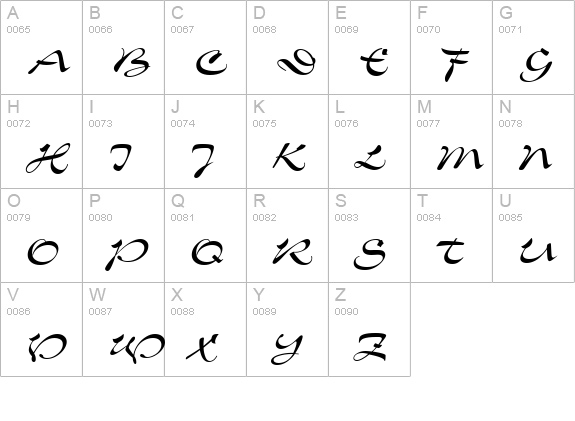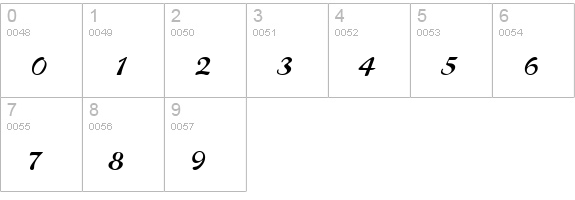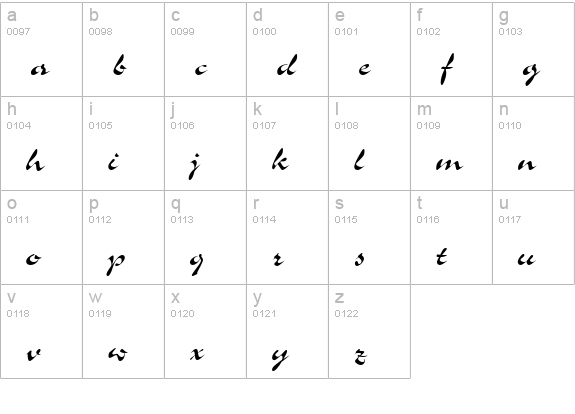
Soledad-Regular is the standard, neutral variant in the Soledad typeface family \xE2\x80\x94 well suited to general body text, paragraphs, and standard typographic work.
Soledad-Regular is a modern and elegant font that exudes sophistication and style. This versatile typeface is perfect for a wide range of projects, from branding and advertising to web design and packaging. Its clean lines and subtle curves give it a timeless appeal that will make your text stand out. What's even better is that Soledad-Regular is completely free to download at FontsMarket.com. This means you can add this beautiful font to your collection without any cost, making it an excellent choice for designers on a budget. Don't miss out on the opportunity to enhance your projects with the stunning Soledad-Regular font – download it for free today at FontsMarket.com!